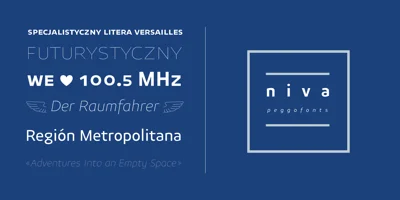
Niva Font
Looking for a clean, modern, and versatile typeface that elevates your design projects? Niva Font is a sleek sans-serif font that combines simplicity with elegance, making it ideal for branding, editorial layouts, web design, and packaging. Its balanced letterforms and smooth curves ensure readability while adding a professional touch.
With its modern aesthetics and clean lines, Niva Font adapts beautifully to both digital and print environments. It’s perfect for those who want their message to be clear, elegant, and impactful without unnecessary frills.